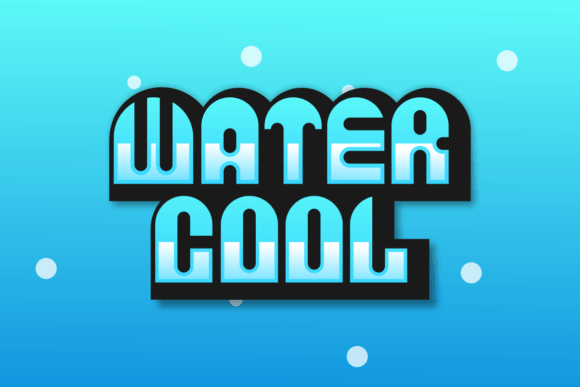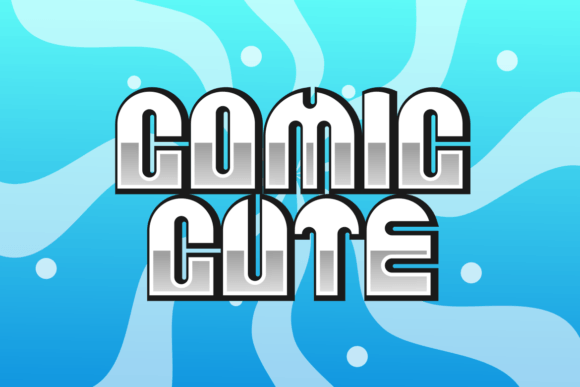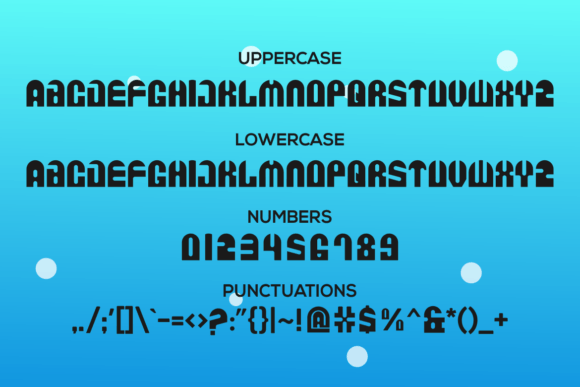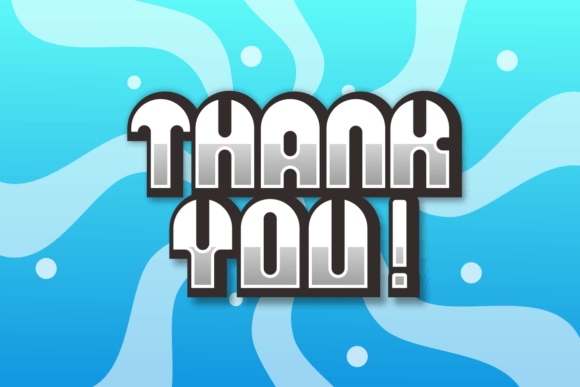
Introducing Crebzo Font: The Ultimate Choice for Quirky Designs
Are you a designer or crafter looking for a font that adds a touch of quirkiness to your creations? Look no further than Crebzo Font! This bold and funky display font is perfect for cartoon-related designs, children’s games, and any project that requires a dash of playfulness. In this article, we’ll dive into the world of Crebzo Font and explore its features, benefits, and uses.
What is Crebzo Font?
Crebzo Font is a unique and eye-catching display font designed to make a statement. Its bold and funky style is sure to grab attention and add a touch of personality to any design. The font’s quirky and playful vibe makes it an excellent choice for projects that require a bit of whimsy, such as children’s books, games, and cartoons.
Key Features of Crebzo Font
- Bold and Funky Style: Crebzo Font boasts a bold and funky style that’s sure to make your designs stand out.
- Quirky and Playful Vibe: The font’s quirky and playful vibe makes it perfect for projects that require a bit of whimsy.
- Display Font: Crebzo Font is a display font, making it ideal for headlines, titles, and short phrases.
- Easy to Read: Despite its bold and funky style, Crebzo Font is easy to read, even at smaller sizes.
Benefits of Using Crebzo Font
So, why choose Crebzo Font for your designs? Here are just a few benefits of using this amazing font:
- Adds Personality to Your Designs: Crebzo Font adds a touch of personality to your designs, making them more engaging and memorable.
- Perfect for Kids’ Projects: The font’s playful and quirky vibe makes it perfect for kids’ projects, such as children’s books, games, and cartoons.
- Versatile: Crebzo Font can be used for a wide range of projects, from digital designs to print materials.
- Easy to Pair with Other Fonts: Crebzo Font pairs well with other fonts, making it easy to create visually appealing designs.
Use Cases for Crebzo Font
So, what can you use Crebzo Font for? Here are just a few ideas to get you started:
- Children’s Books and Games: Crebzo Font is perfect for kids’ projects, such as children’s books, games, and puzzles.
- Cartoon-Related Designs: The font’s playful and quirky vibe makes it ideal for cartoon-related designs, such as character logos and titles.
- Digital Designs: Crebzo Font can be used for a wide range of digital designs, from social media graphics to website headers.
- Print Materials: The font can also be used for print materials, such as posters, flyers, and brochures.
Tips for Using Crebzo Font
Here are a few tips for using Crebzo Font in your designs:
- Use it as a Header Font: Crebzo Font is perfect for headers and titles, where its bold and funky style can really shine.
- Pair it with Other Fonts: Crebzo Font pairs well with other fonts, so don’t be afraid to experiment with different combinations.
- Experiment with Colors: The font’s bold and funky style looks great in a wide range of colors, so don’t be afraid to experiment.
In conclusion, Crebzo Font is a bold and funky display font that’s perfect for designers and crafters looking to add a touch of quirkiness to their creations. With its playful and quirky vibe, versatility, and ease of use, Crebzo Font is an excellent choice for a wide range of projects. Whether you’re working on a children’s book, cartoon-related design, or digital project, Crebzo Font is sure to make your designs stand out.